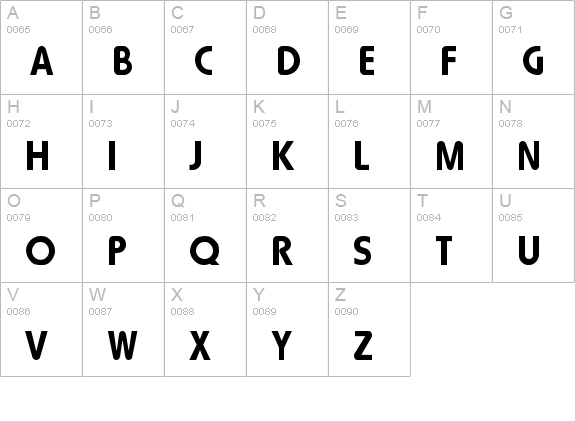
Hammer Fat Font Details
Introducing Hammer Fat, a bold and dynamic font that exudes strength and power. With its sturdy and robust letterforms, this typeface is perfect for creating eye-catching headlines, logos, and posters that demand attention. Hammer Fat boasts an impressive weight and thickness, making it ideal for projects that require a strong and impactful visual presence. Its unique design combines sharp angles and sleek curves, resulting in a distinct and modern aesthetic. But what sets Hammer Fat apart is not just its striking appearance, but also its accessibility. This remarkable font is available for free download at FontsMarket.com, allowing designers, artists, and creatives of all kinds to harness its commanding presence without any financial constraints. Whether you're designing an edgy album cover, a powerful advertising campaign, or a captivating website, Hammer Fat is the perfect choice to make your message heard loud and clear. With its versatility and boldness, this font is bound to leave a lasting impression on any project it graces. So why wait? Download Hammer Fat today, freely available at FontsMarket.com, and unleash the strength and impact of this remarkable typeface in your designs.